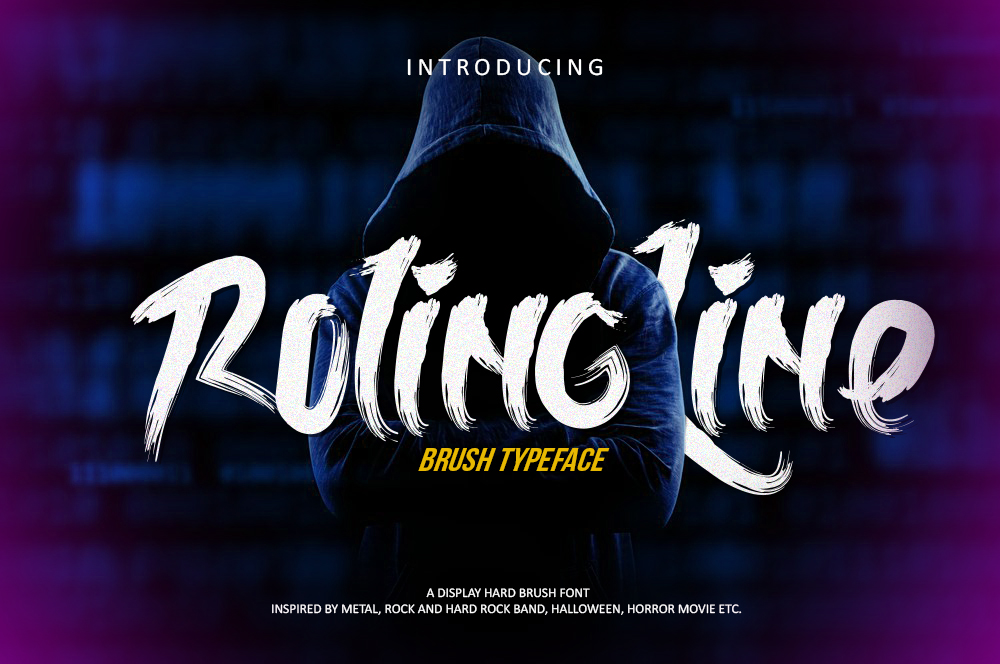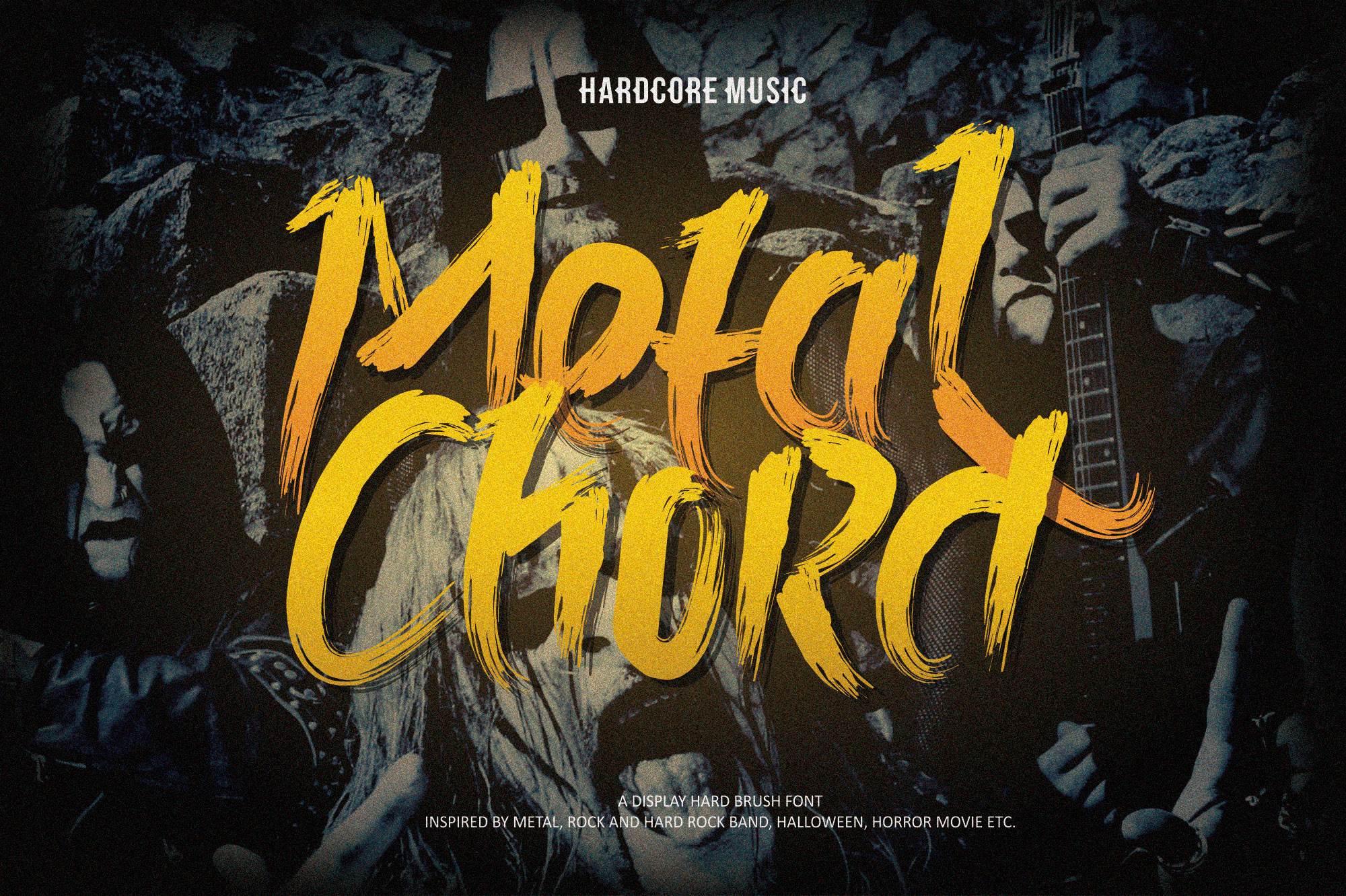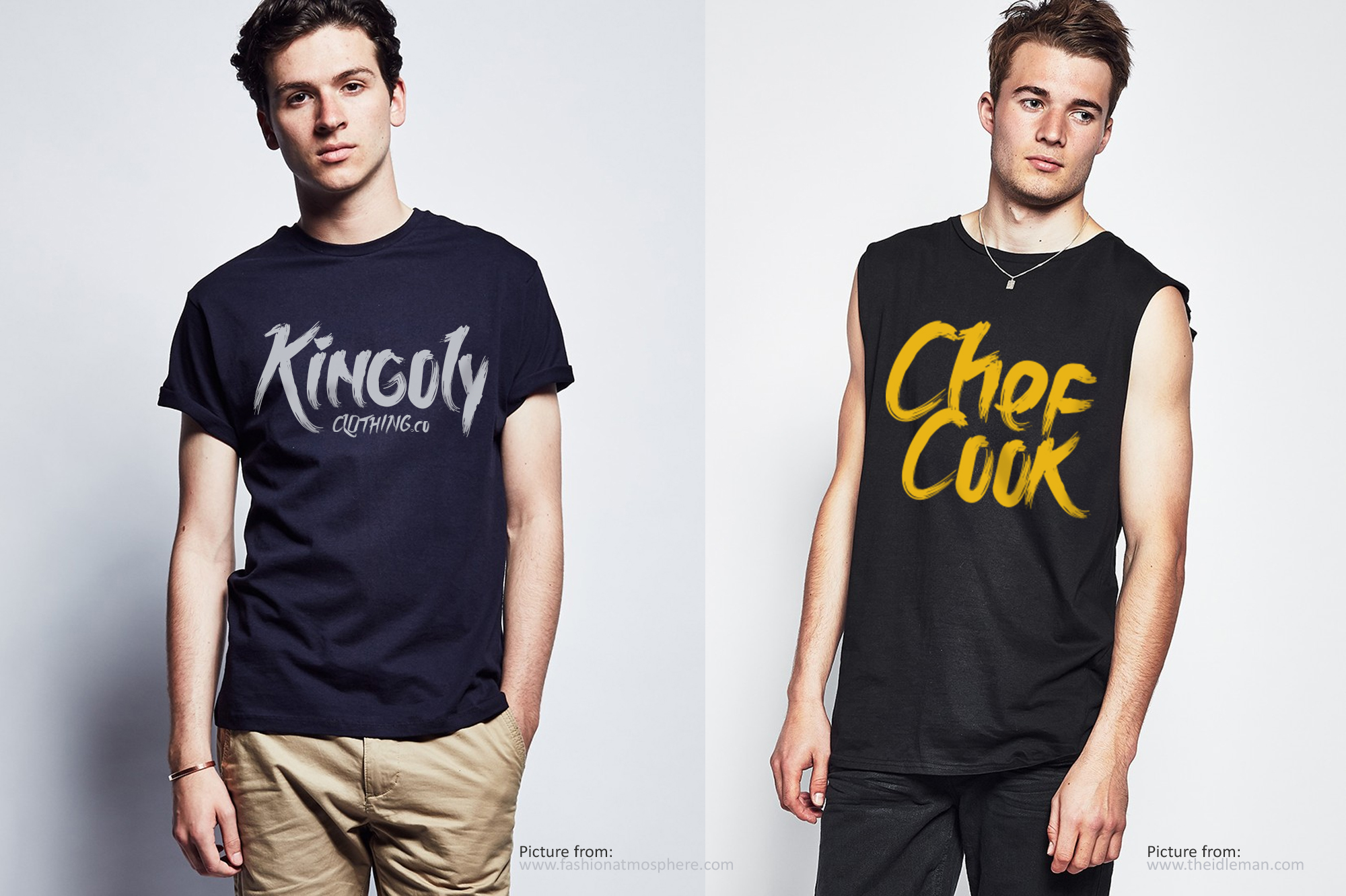
HomeScript FontsRolingline Font Script Fonts Rolingline Font FacebookXPinterestWhatsApp Rolingline Font Poster 2 Rolingline Font Poster 3 About Rolingline Font Rolingline Brush is a painted brush suitable for apparel, quotes, packaging and more. DOWNLOAD ON CREATIVE FABRICAThis font is sold and delivered by Creative Fabrica. Font Canyon may earn a commission if you buy through this link. People also explored Bilsstwin Font Bettnode Font Celinya Font Symphony Font Rasyideen Font February Font Coffee Please Font Chicken Craven Font Kids Whiteboard Font 301 0 TagsRolingline Font Previous articleStayhend FontNext articleRobusta Font LEAVE A REPLY Cancel reply Comment: Please enter your comment! Name:* Please enter your name here Email:* You have entered an incorrect email address! Please enter your email address here Website: Save my name, email, and website in this browser for the next time I comment. Personal Use Free Loopina Personal Use Free Read more about this font Thruster Personal Use Free Read more about this font Tahu Font Personal Use Free Read more about this font Maxwell Personal Use Free Read more about this font BLOG Free Fonts Risk: Why Free Fonts Can Be Dangerous for Designers Free Fonts Risk: Why Free Fonts Can Be Dangerous for Designers Using free fonts is a common practice in web and graphic design. However, the... Top 10 Handwritten Fonts That Elevate Your Designs How to Cut Any Font on Cricut: Convert a Font to SVG (Free) Best Fonts for YouTube Videos: Make Your Thumbnails Stand Out